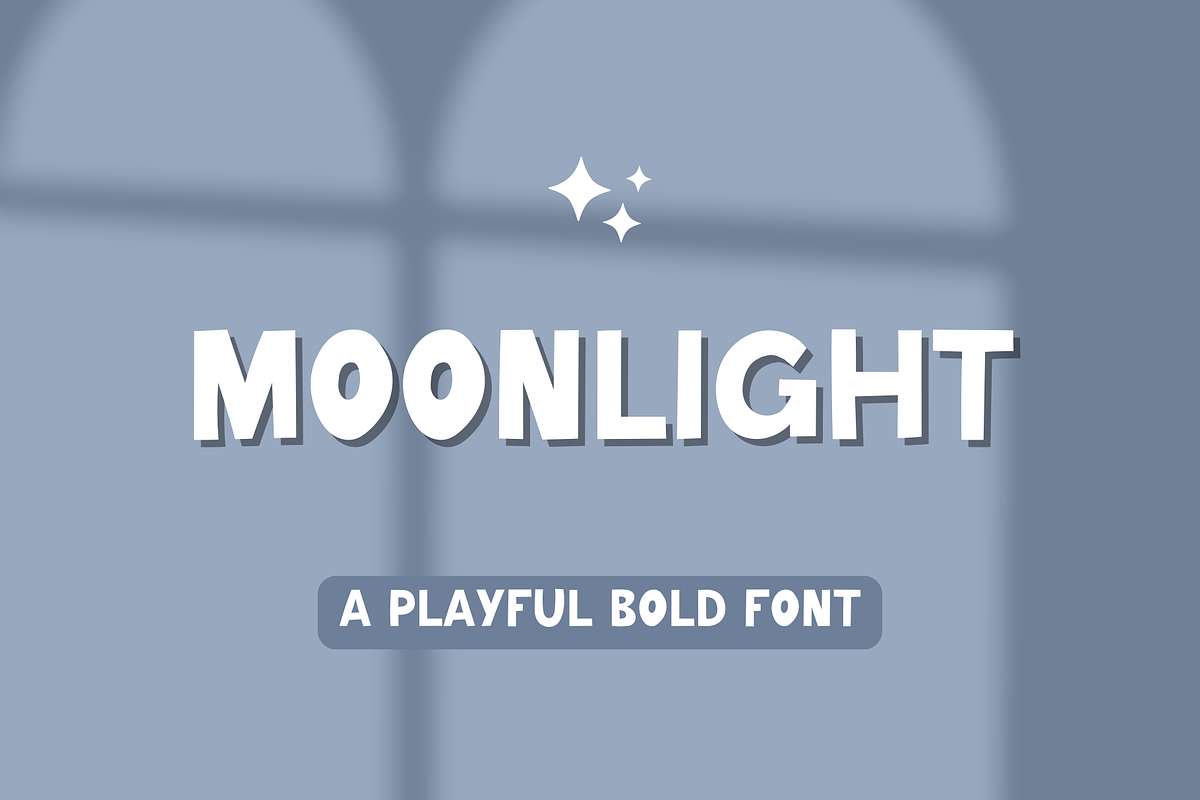
Moonlight Bold Font Free Download
Please note, to use this font for commercial purposes, you must purchase the full version. Moonlight Bold is a strong and striking font that delivers a bold presence with its clean and contemporary design. Perfect for logos, posters, headlines, and branding projects, this font stands out with its thick, commanding letterforms and modern appeal. Whether you're creating a high-impact advertisement or a memorable brand identity, Moonlight Bold provides the strength and clarity needed to grab attention. Test it out and enjoy free download access for personal use. Experience the power of Moonlight Bold Font Free Download before purchasing the commercial license. Add a bold statement to your designs with the stunning Moonlight Bold font.